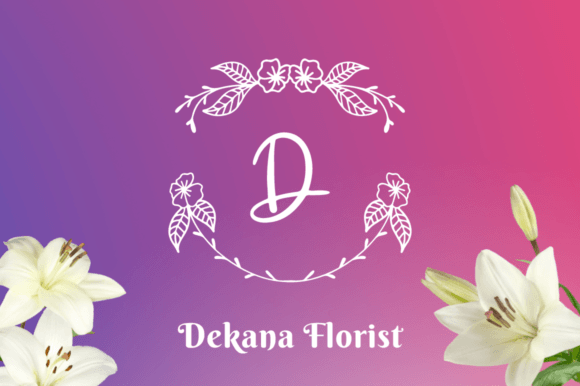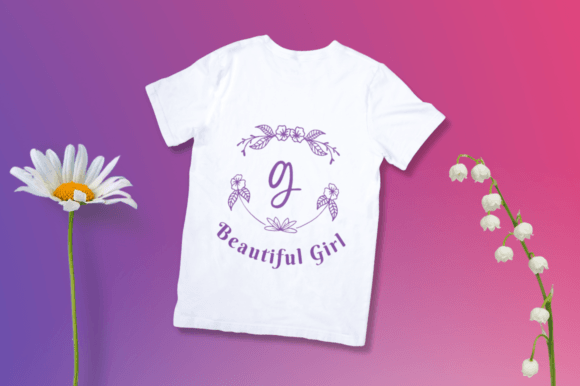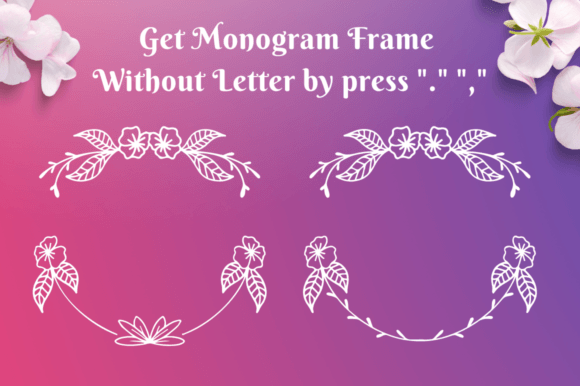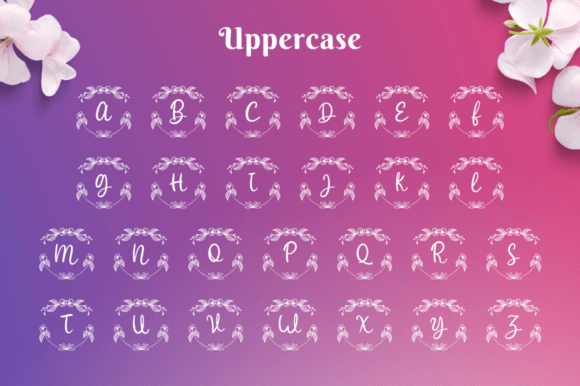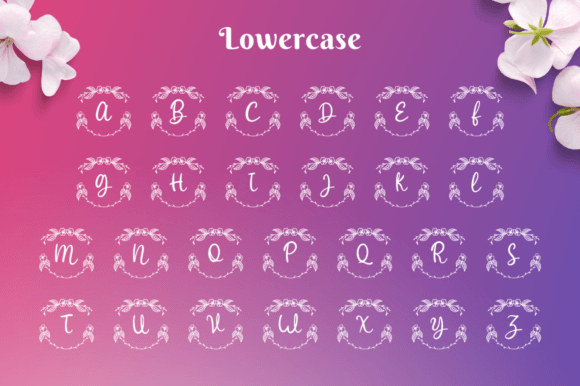
Introduction to Sarimin Monogram Font
Sarimin Monogram is a beautiful decorative font, elegant & perfect for your special occasions, business designs, logos, branding, social media posts, and wedding cards.
Comes in 2 styles Just simply change between uppercase and lowercase to see the different styles.
Key Features of Sarimin Monogram Font